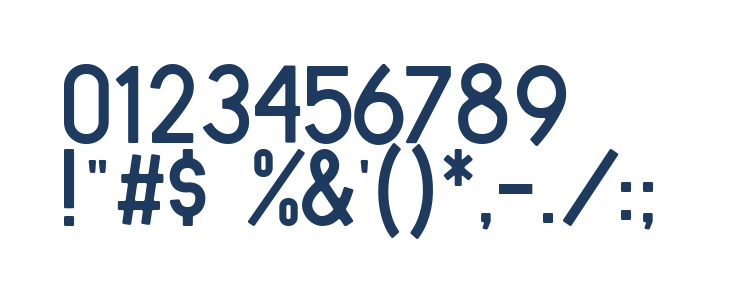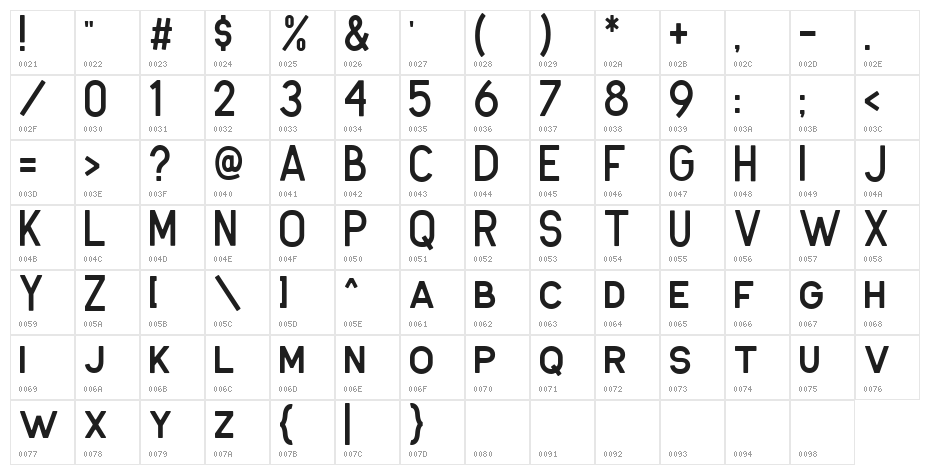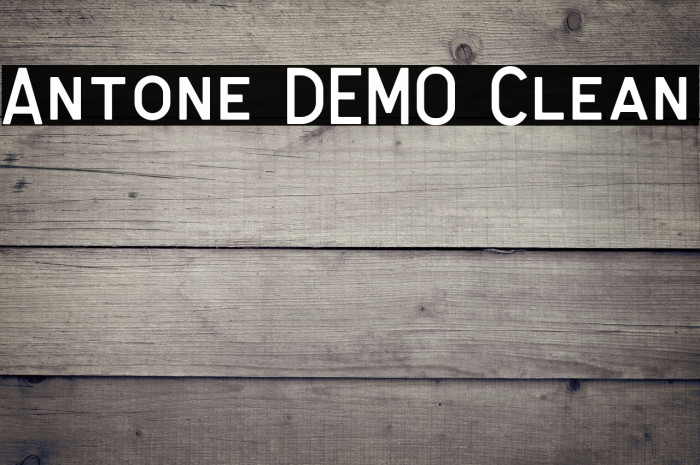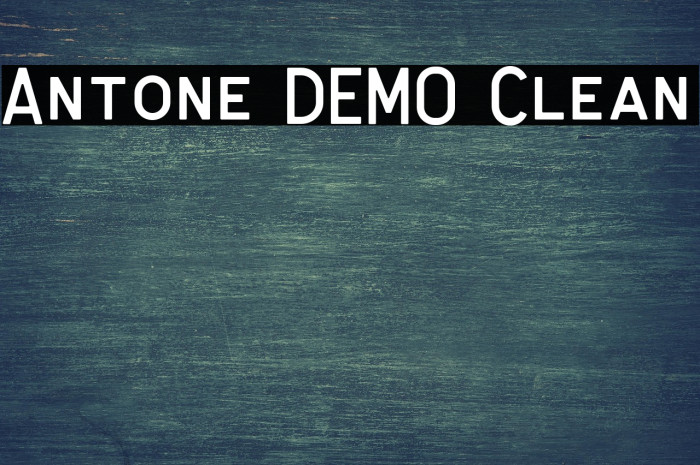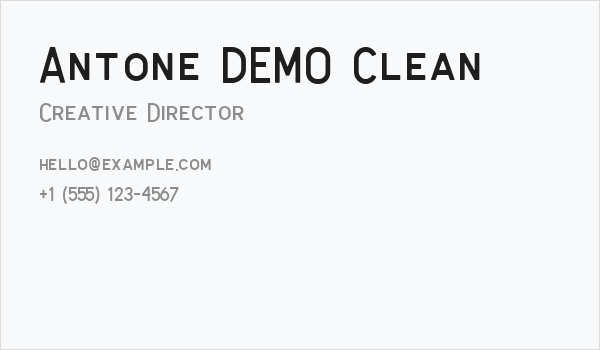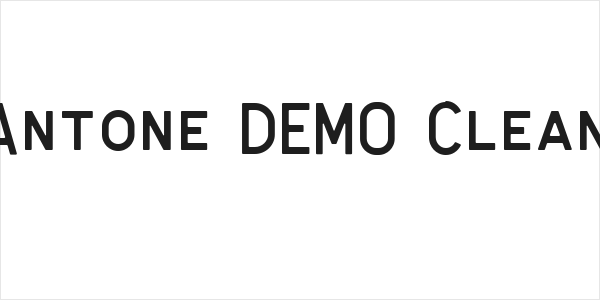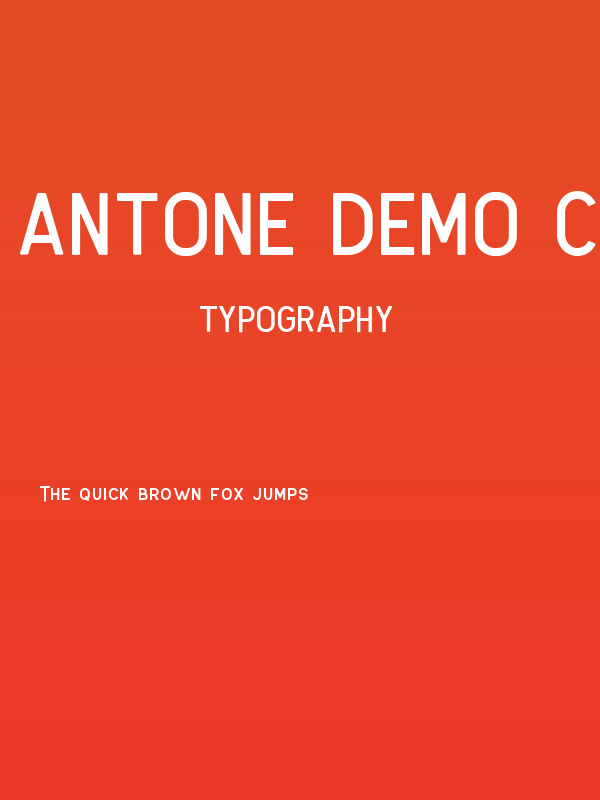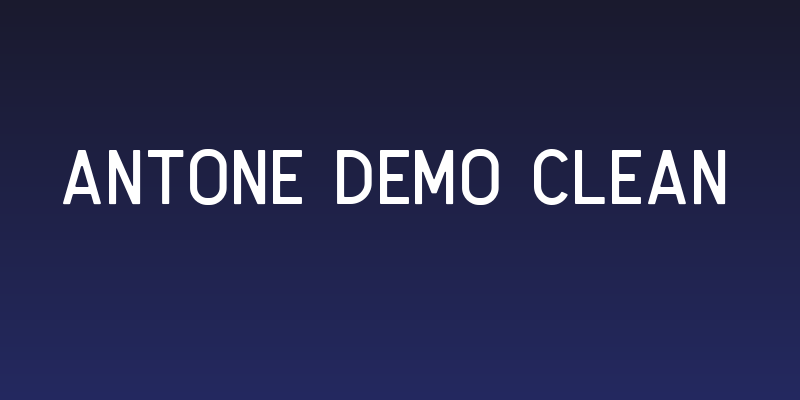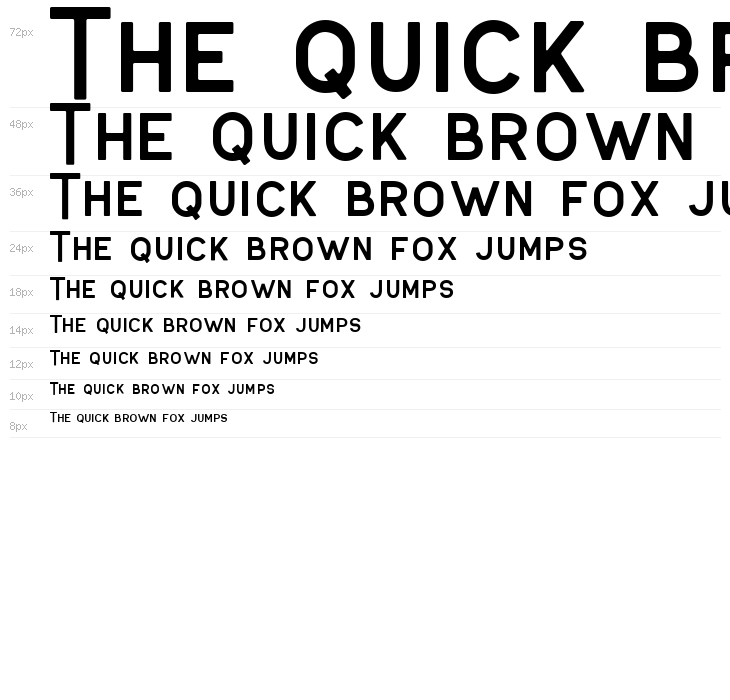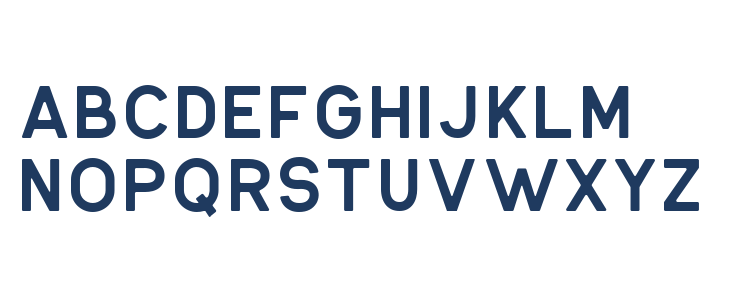
Antone DEMO Clean Font
Antone DEMO Clean Description
This font exhibits a clean and modern sans-serif style, characterized by its bold and uniform stroke width. The characters are well-defined with a geometric structure, providing a sense of clarity and precision. The uppercase and lowercase letters maintain consistent proportions, enhancing readability. The numerals are straightforward and align well with the overall design, making them suitable for various applications. Special characters are included, offering versatility for different contexts. The overall appearance is sleek and professional, making it ideal for contemporary design projects.